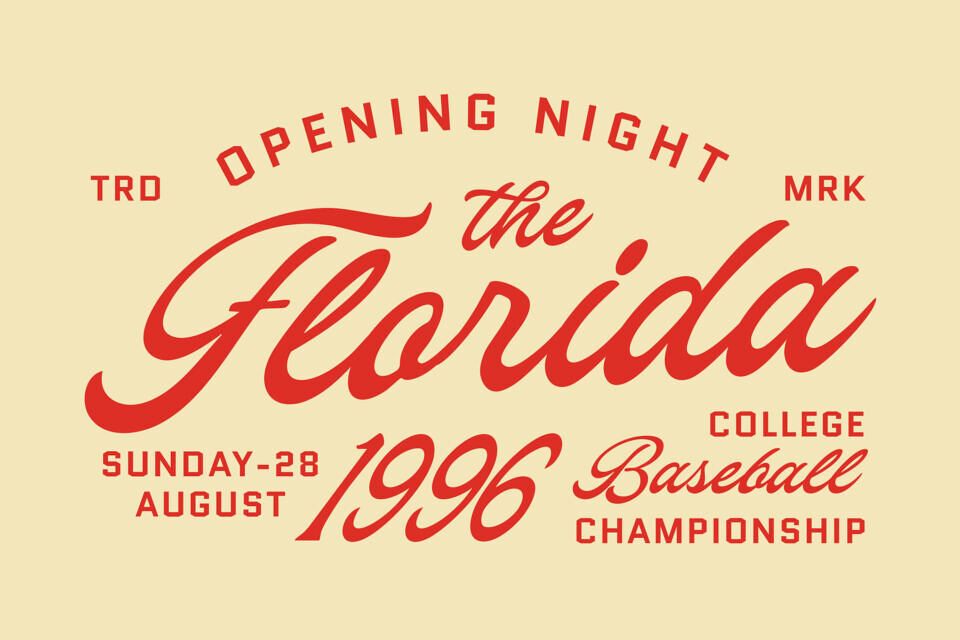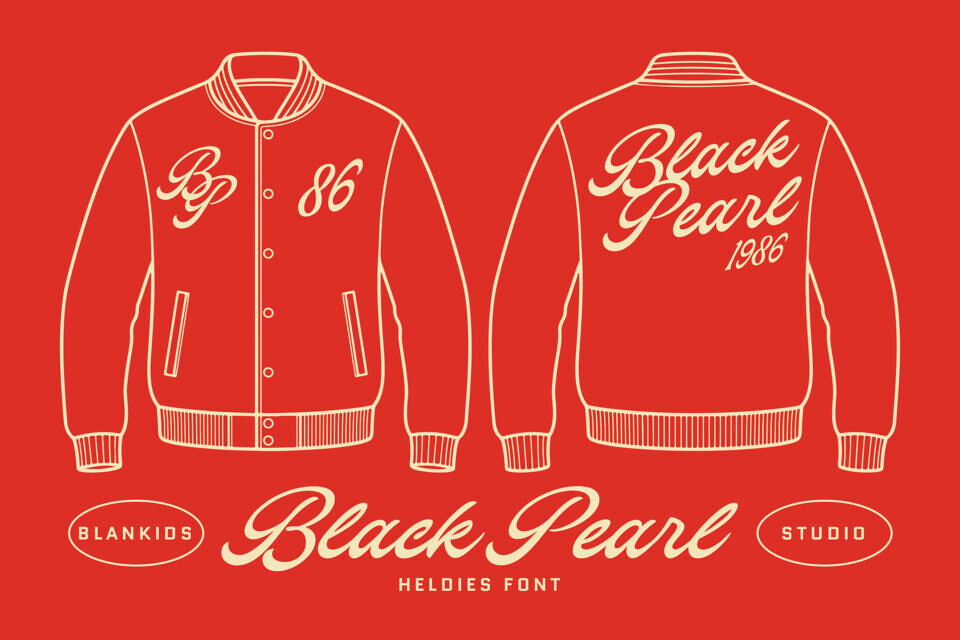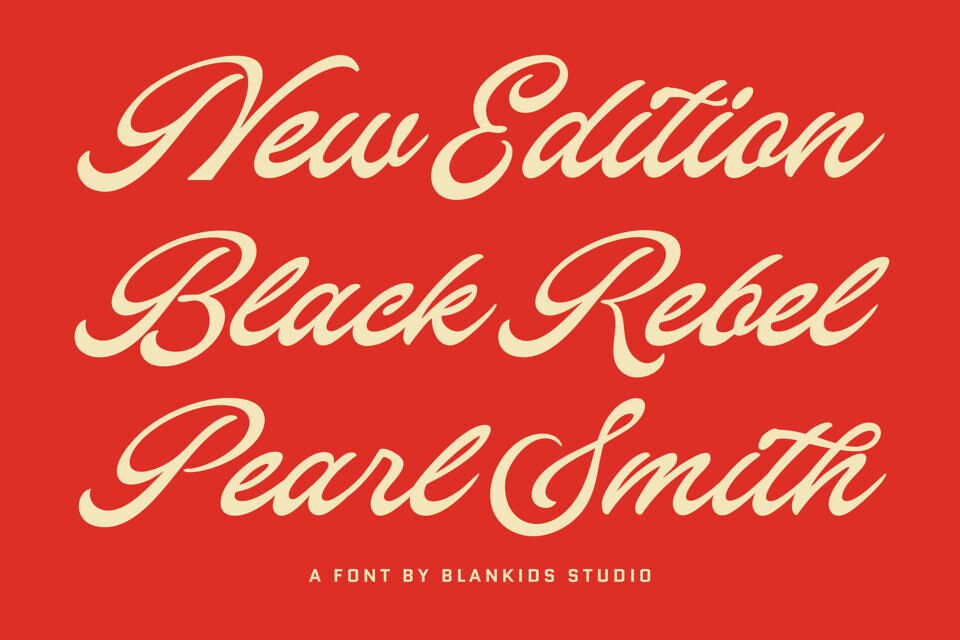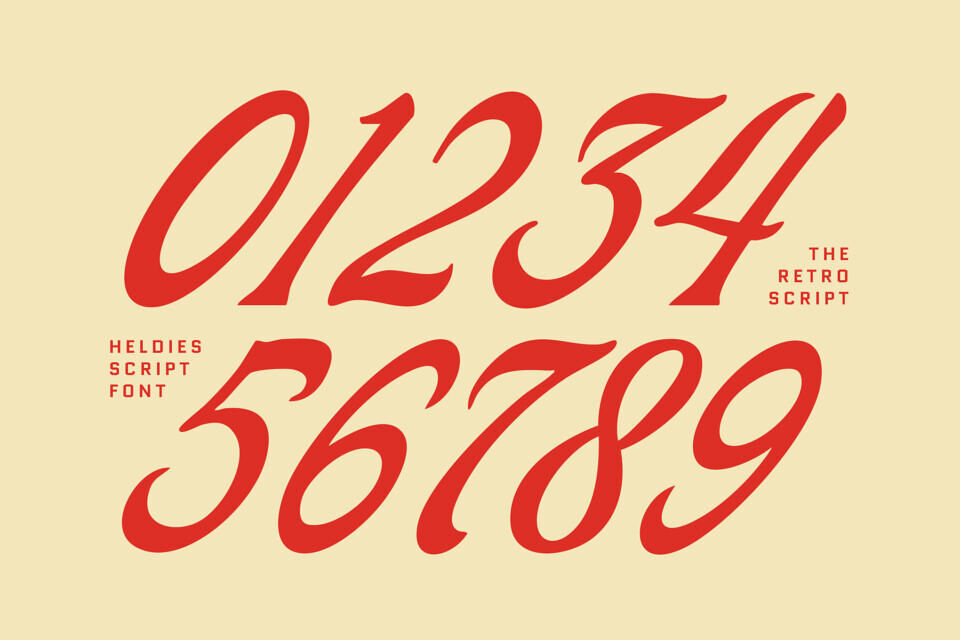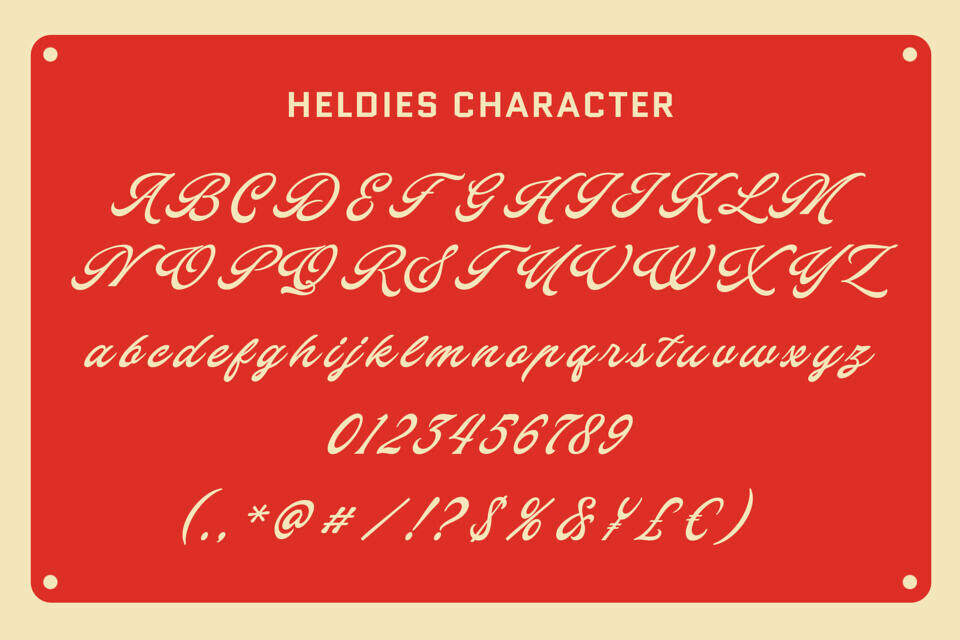
Heldies Font
Heldies Script Font exudes timeless charm with its retro-inspired design, bringing warmth and elegance to your projects. Its smooth curves and classic letterforms evoke nostalgia while remaining versatile for modern use.
Perfect for various applications, including logos, packaging, and social media, this font offers a balanced contrast and readability, making it ideal for both display and text use, giving your designs a authentic, handcrafted look.